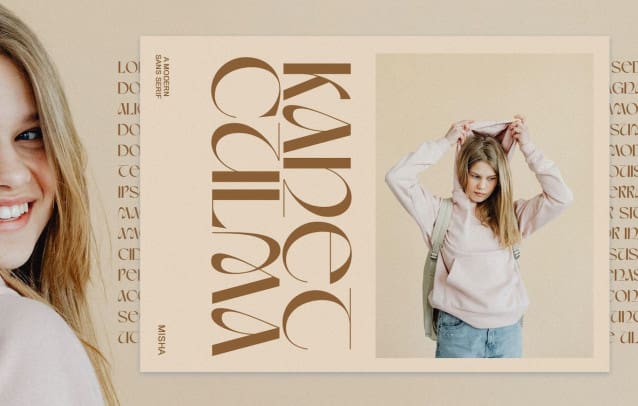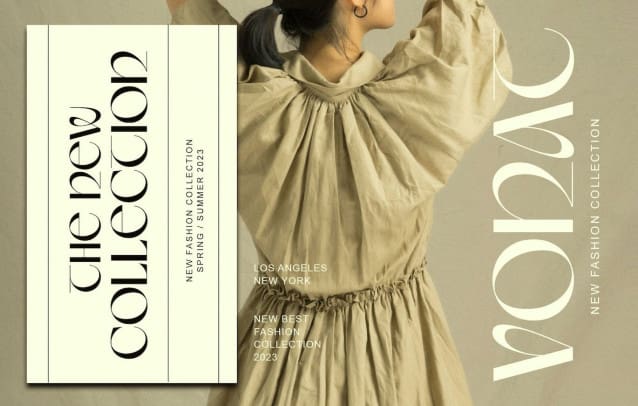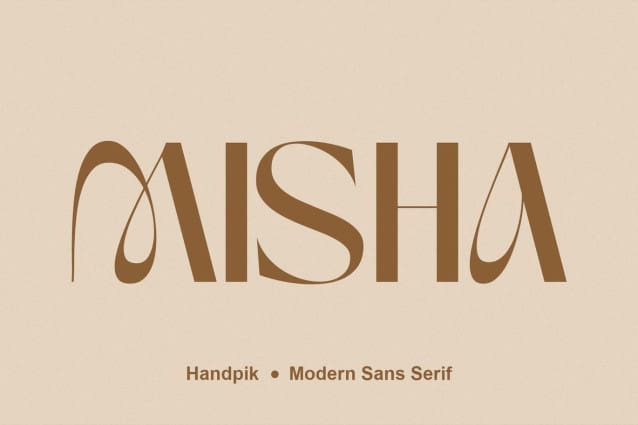
Misha Font
Misha Font is a modern sans serif font. It’s a very versatile font that works great in both large and small sizes. Perfect for branding projects, logo design, product packaging, magazine headers or simply as a stylish text overlay on any background image